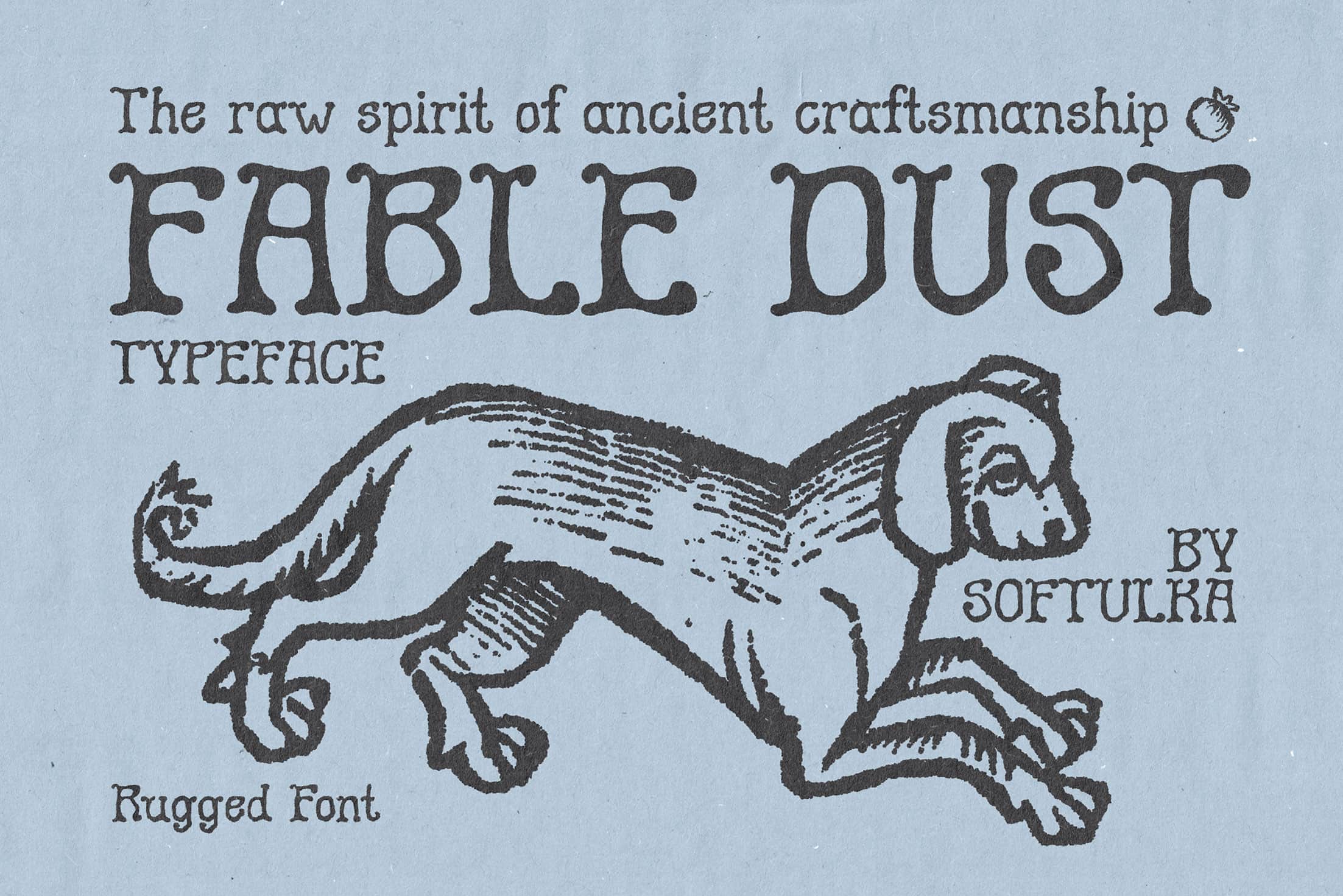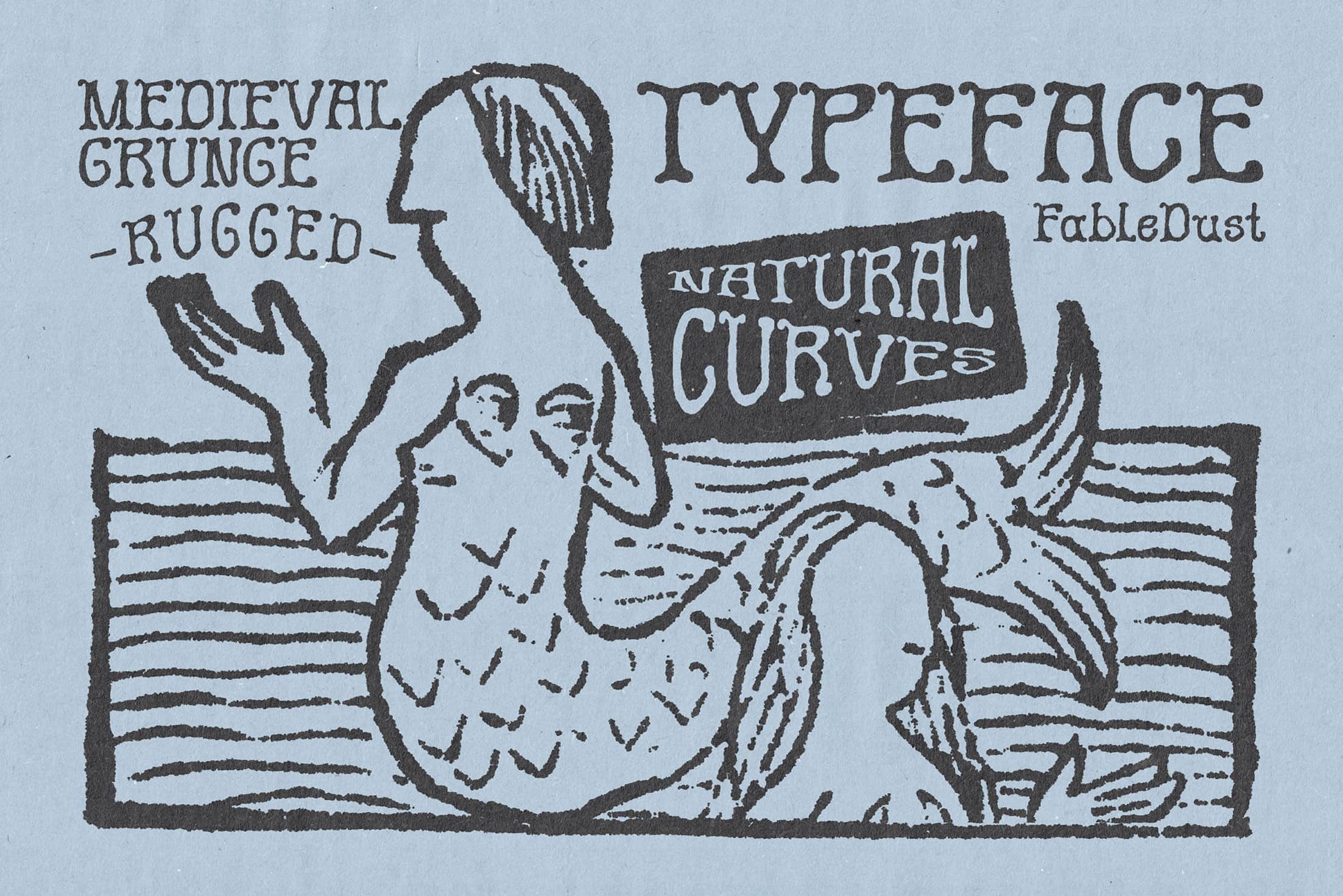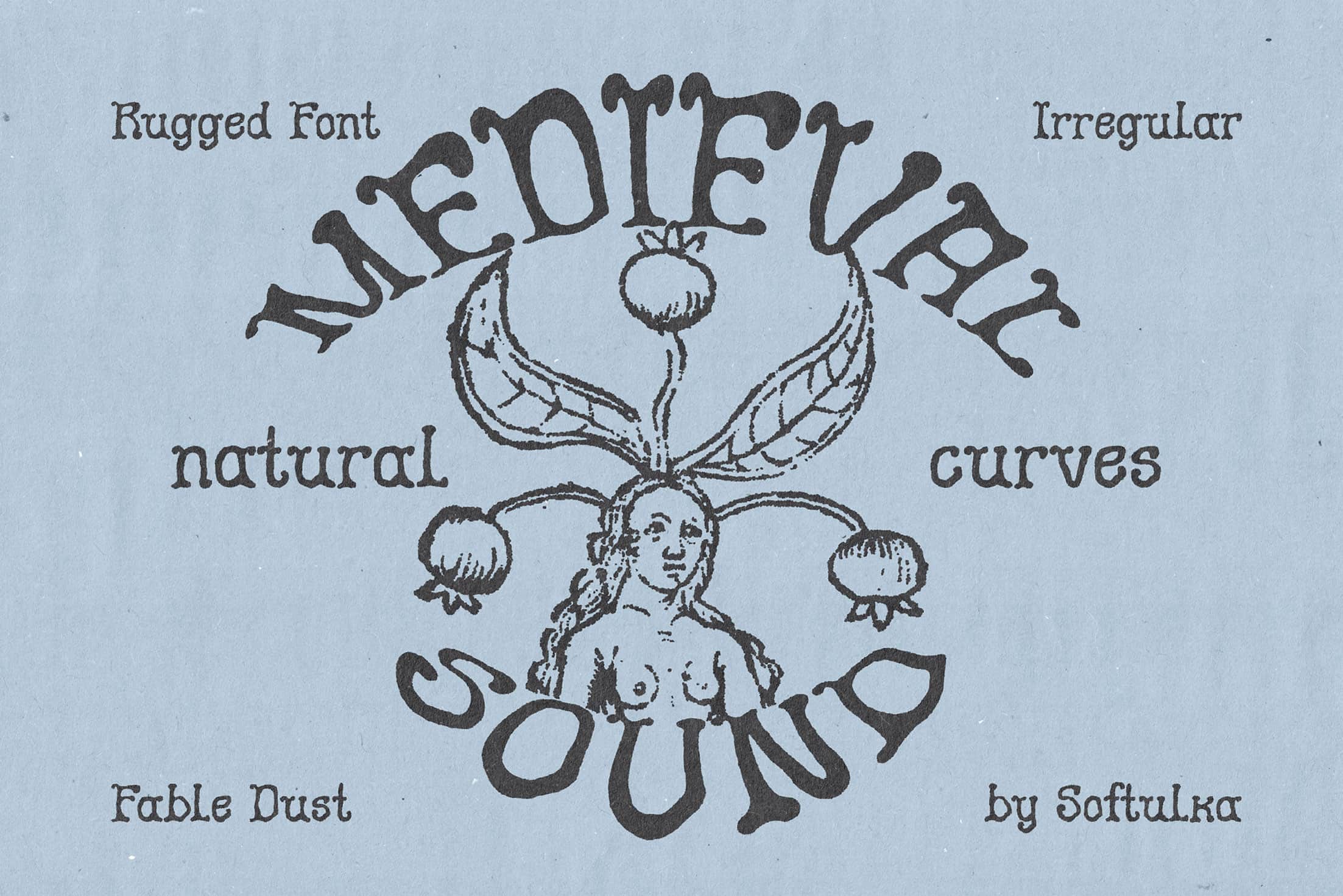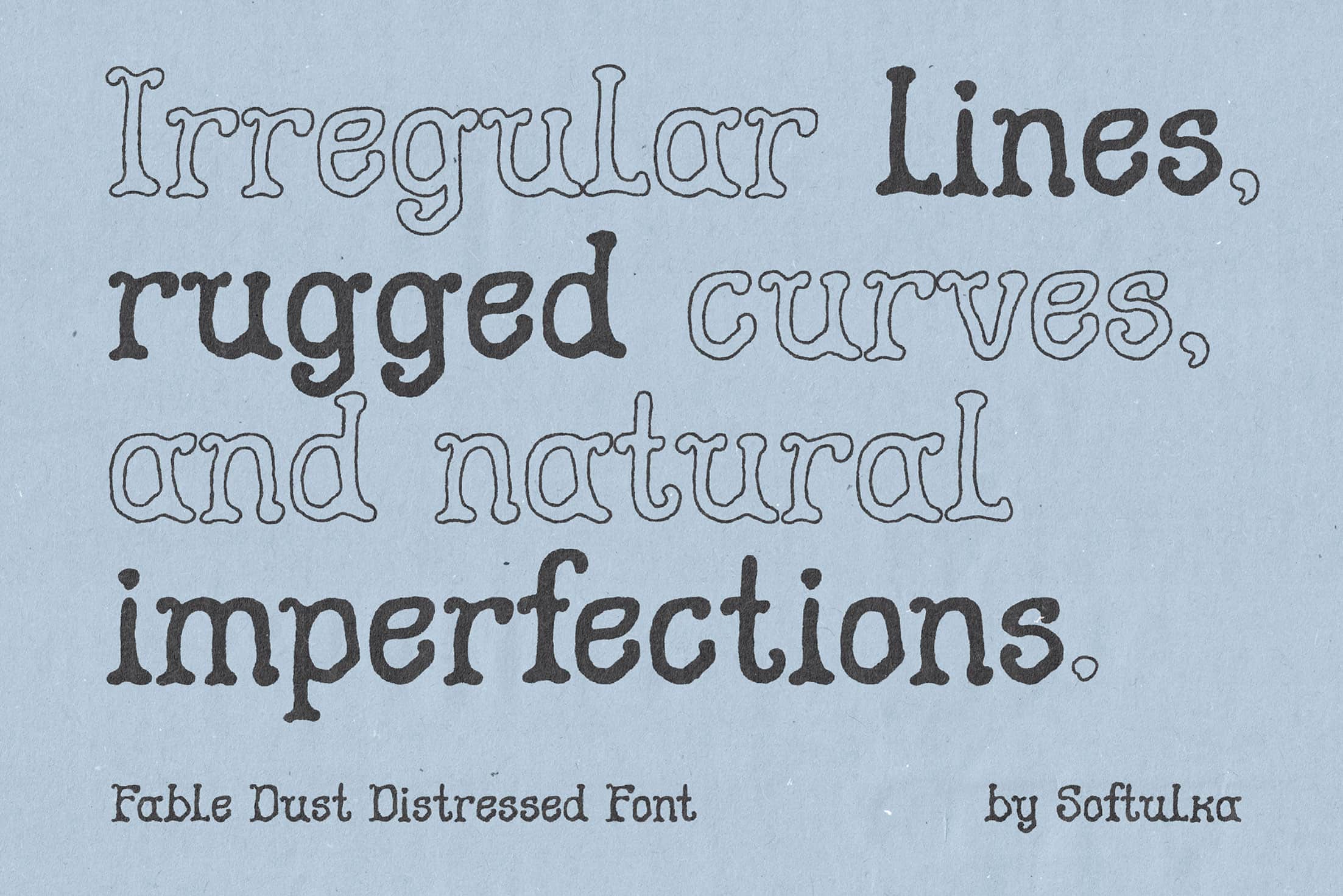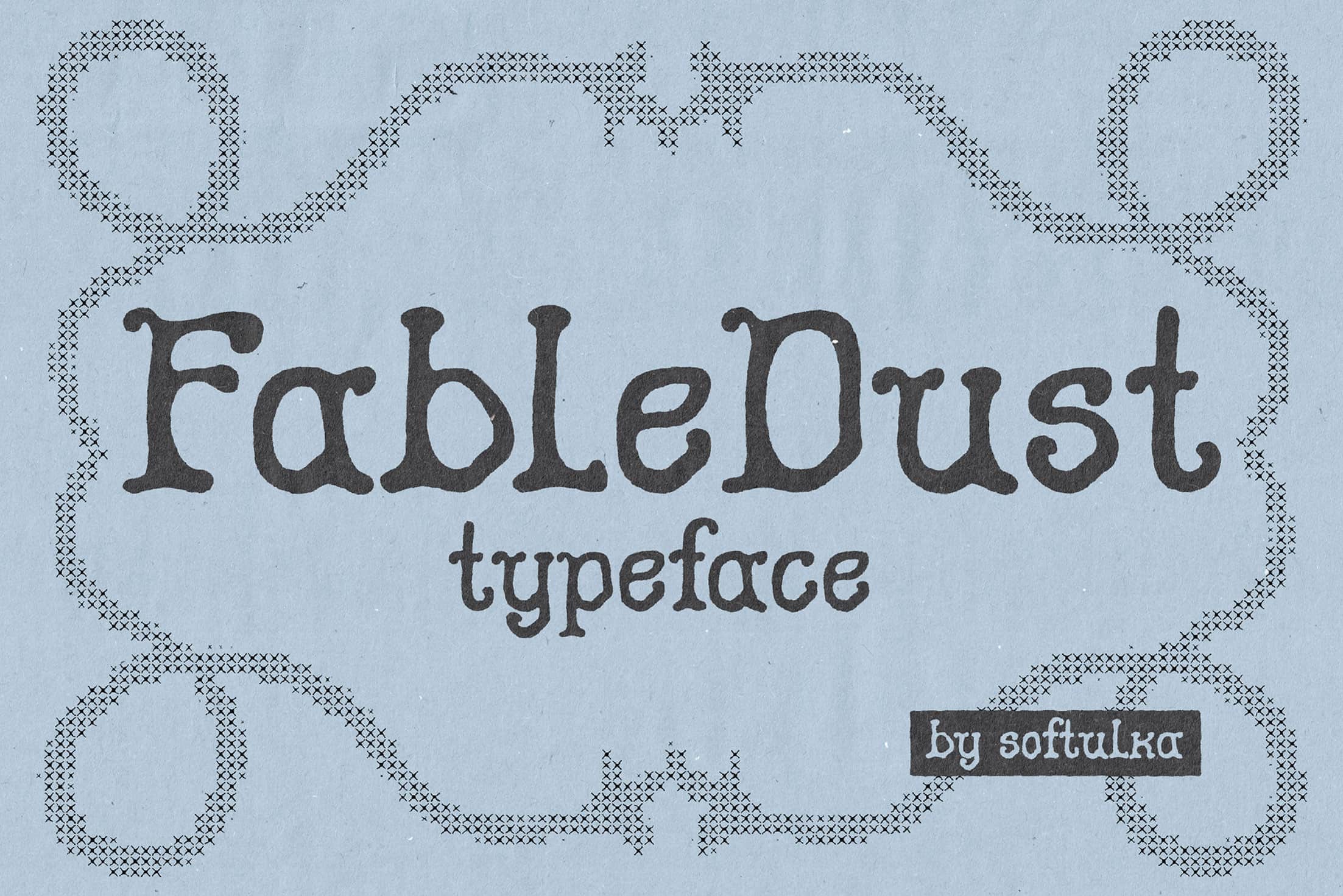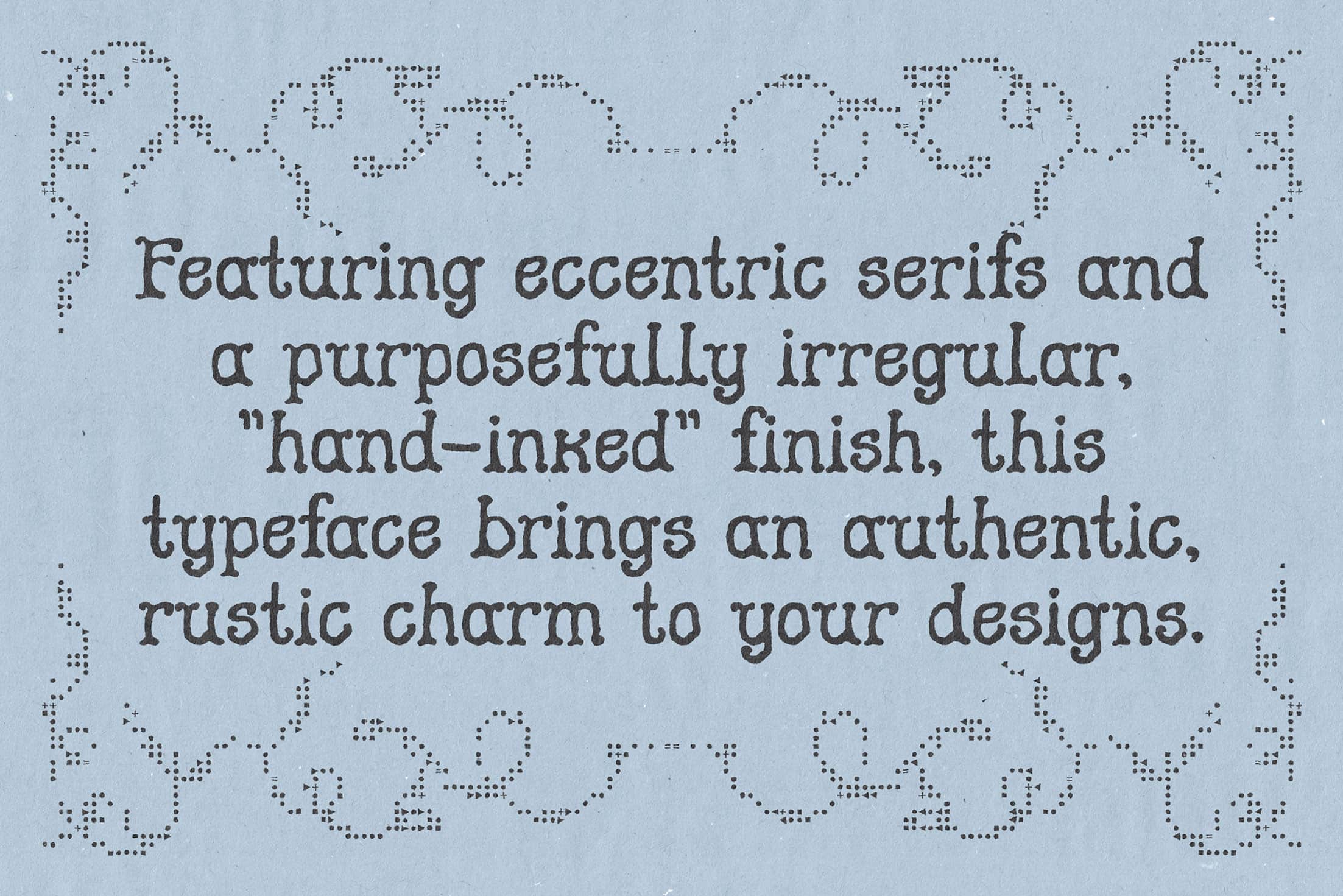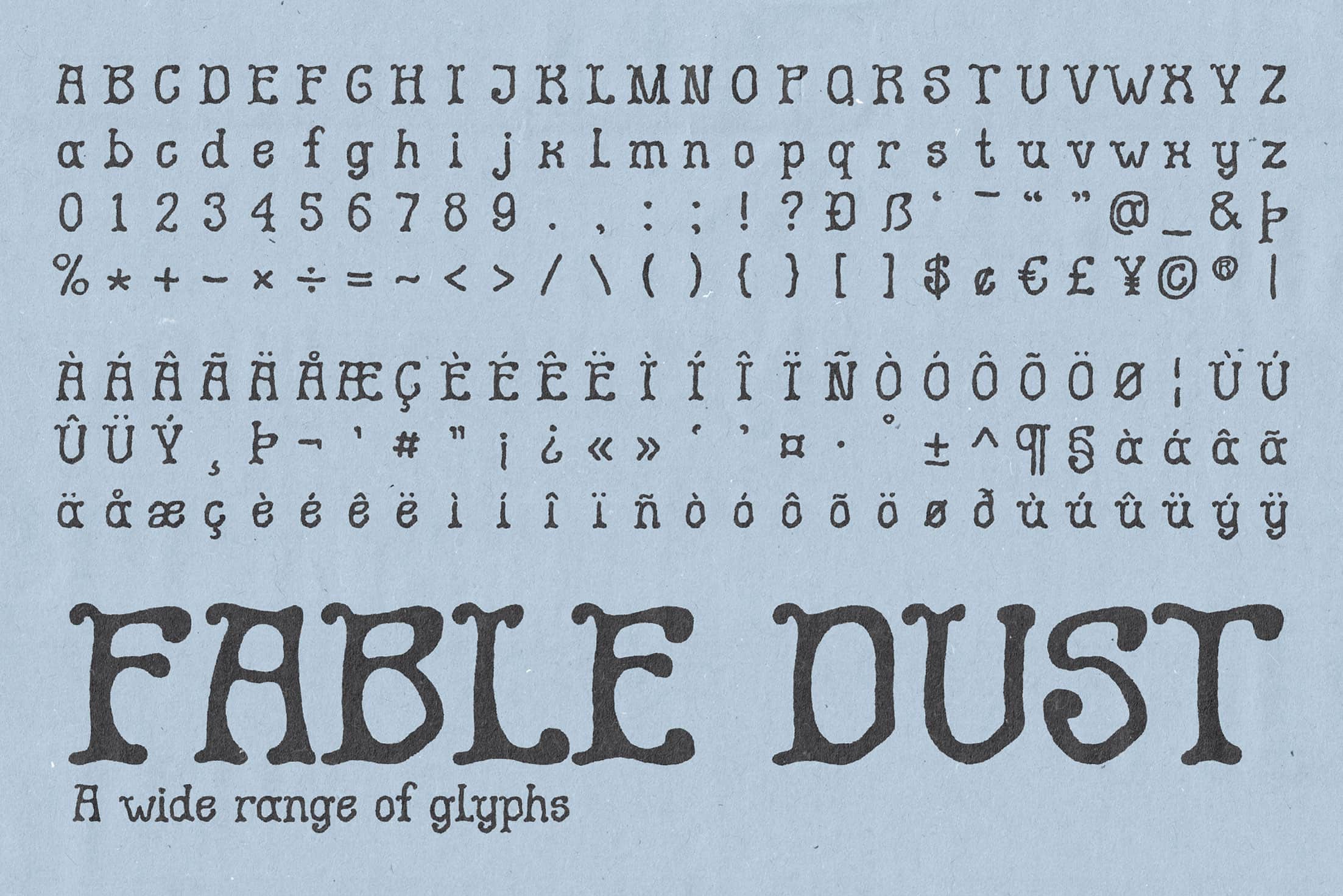
Fable Dust Typeface
Medieval Grunge Typeface. Fable Dust is a whimsical, medieval-inspired display font that captures the essence of ancient manuscripts and forgotten fairytales. Featuring eccentric serifs and a purposefully irregular, "hand-inked" finish, this typeface brings an authentic, rustic charm to your designs. Perfect for book covers, occult branding, vintage posters, and any project needing a touch of mystical, historical imperfection.
Designed for expressive, character-driven typography, Fable Dust blends gothic influences with a raw, grunge texture. Its uneven strokes and organic imperfections create a handcrafted feel, making each word appear slightly unique and alive.
This typeface works especially well in large display settings, where its details and texture can fully stand out. Ideal for editorial layouts, album artwork, packaging, and branding projects that aim for a dark, mysterious, or vintage aesthetic.
• 193 Glyphs
• Lowercase
• Diacritics
• Symbols
• Currency
• Mathematics